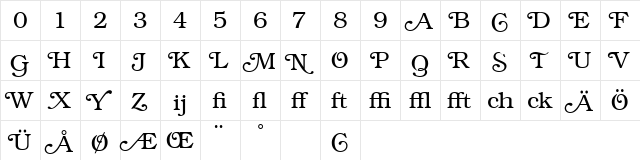
Bookman Profi Light
Design Context for Bookman Profi Typeface
Bookman Profi takes a measured approach to typography — its balanced proportions and neutral character make it a reliable workhorse for both digital and print work. Its slender proportions lend an understated elegance to any composition.